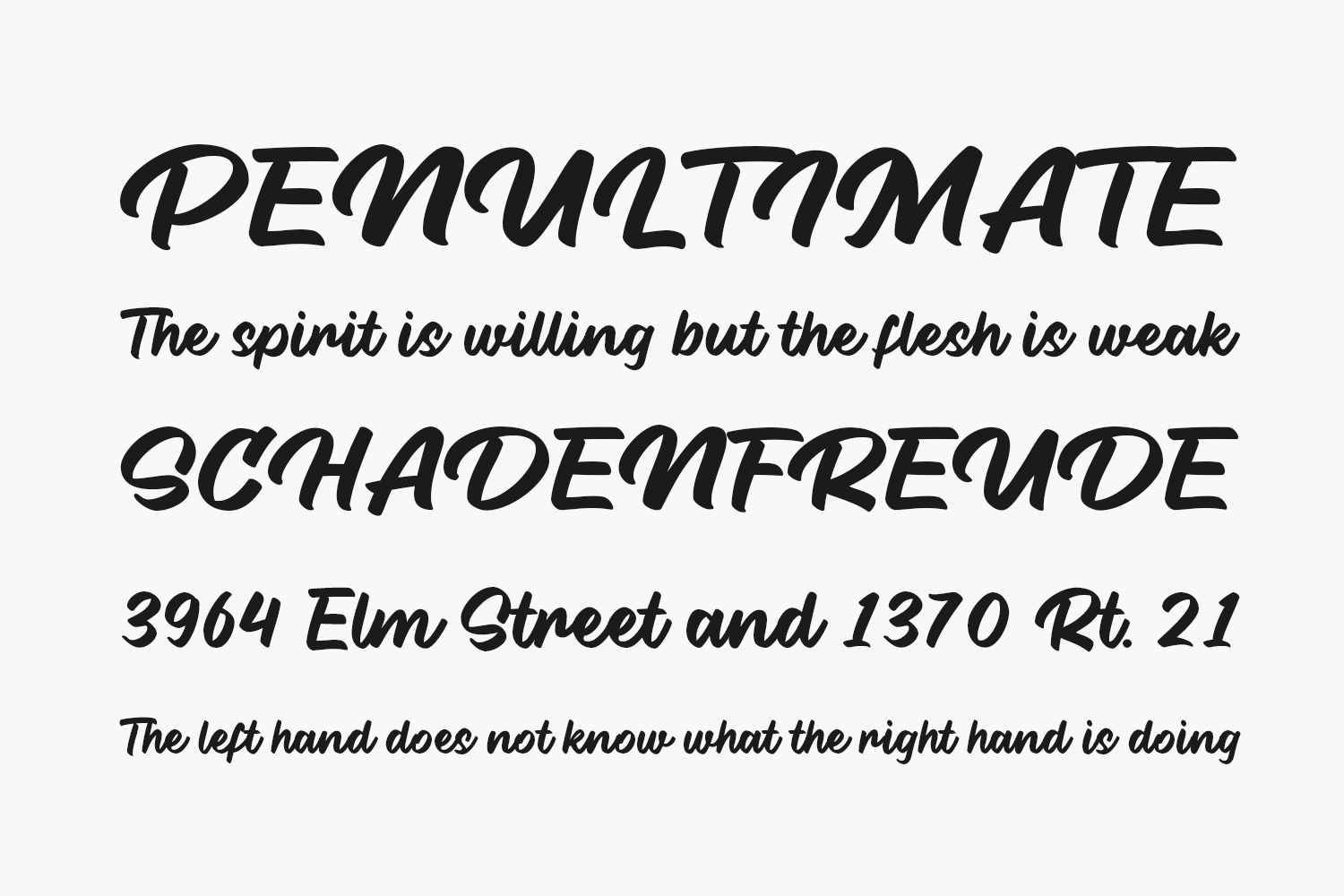
Rastano Free Font is a paint-brushed and playful script font. It’s great for crafters and designers. Rastano Free Font is free for personal use only. Please purchase the full version for commercial use.